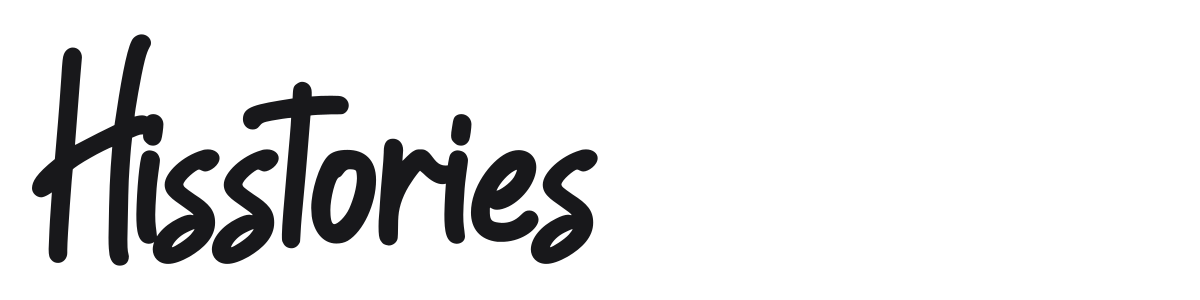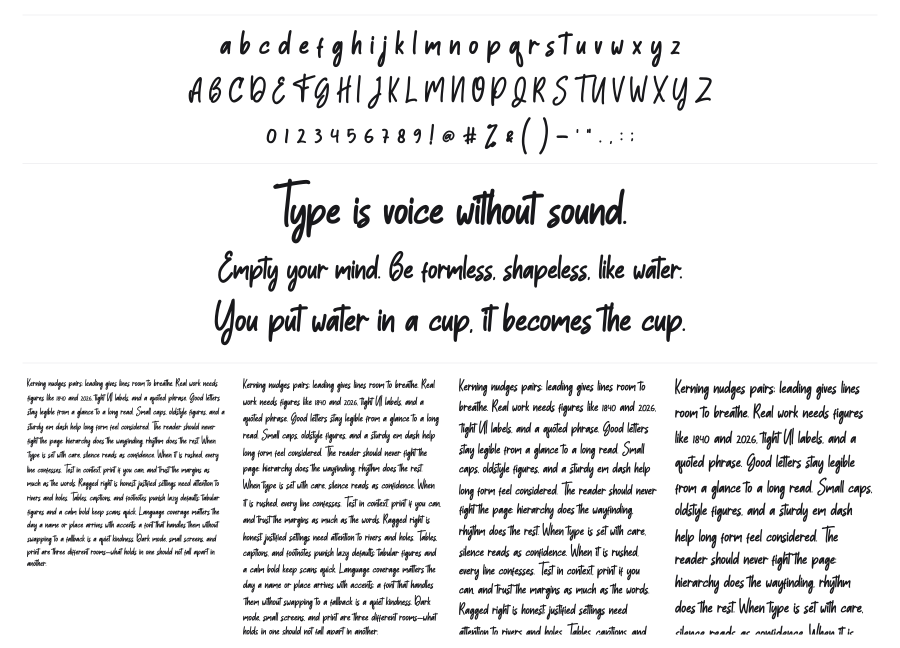
Hisstories
Hisstories is a bold casual handwritten script with thick, rounded strokes and a loose, flowing rhythm. The connected letters carry the energy of a confident marker pen, bouncing slightly along the baseline without feeling chaotic. It brings warmth and informality to branding, signage, and any headline that needs a human touch.